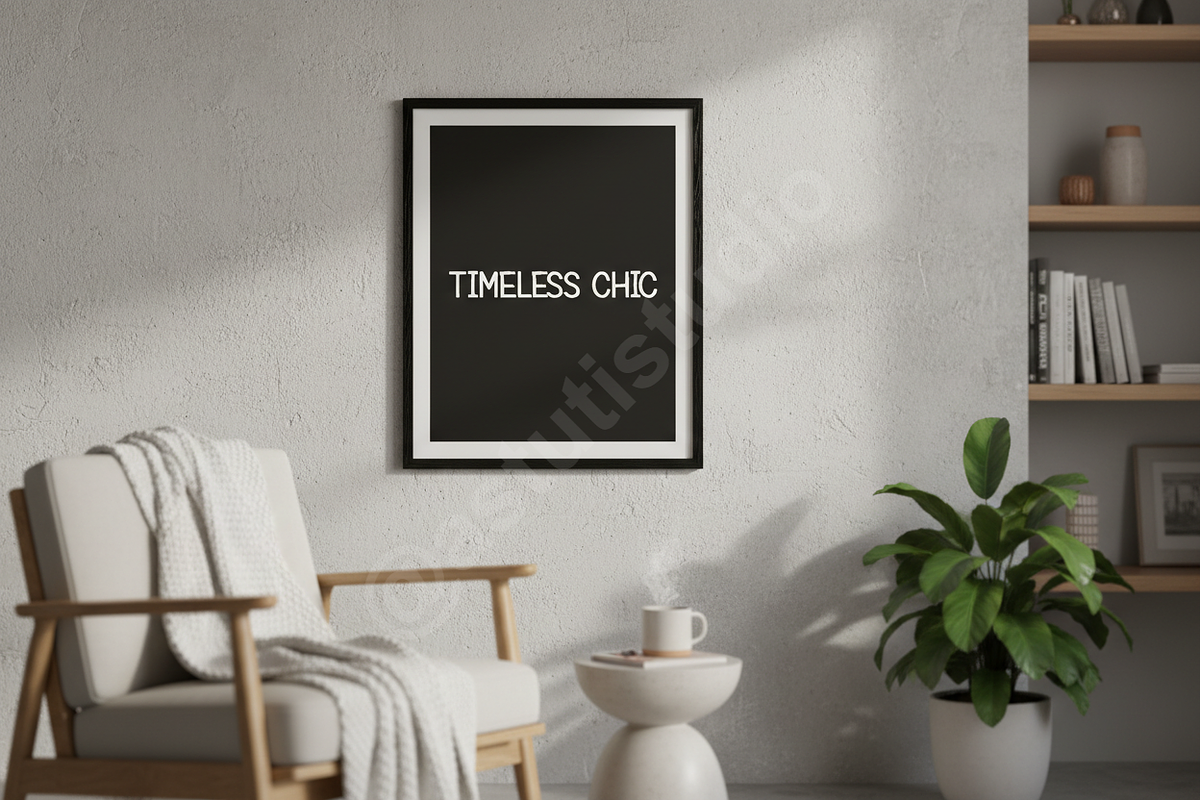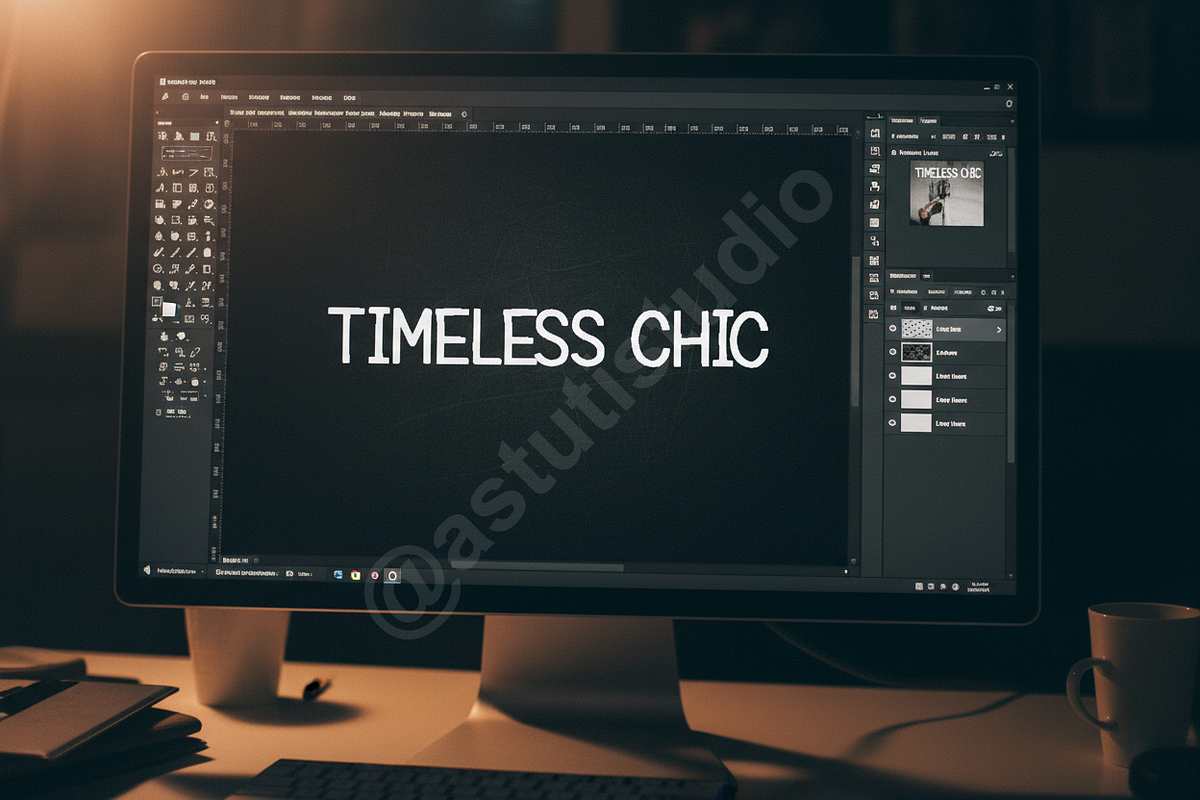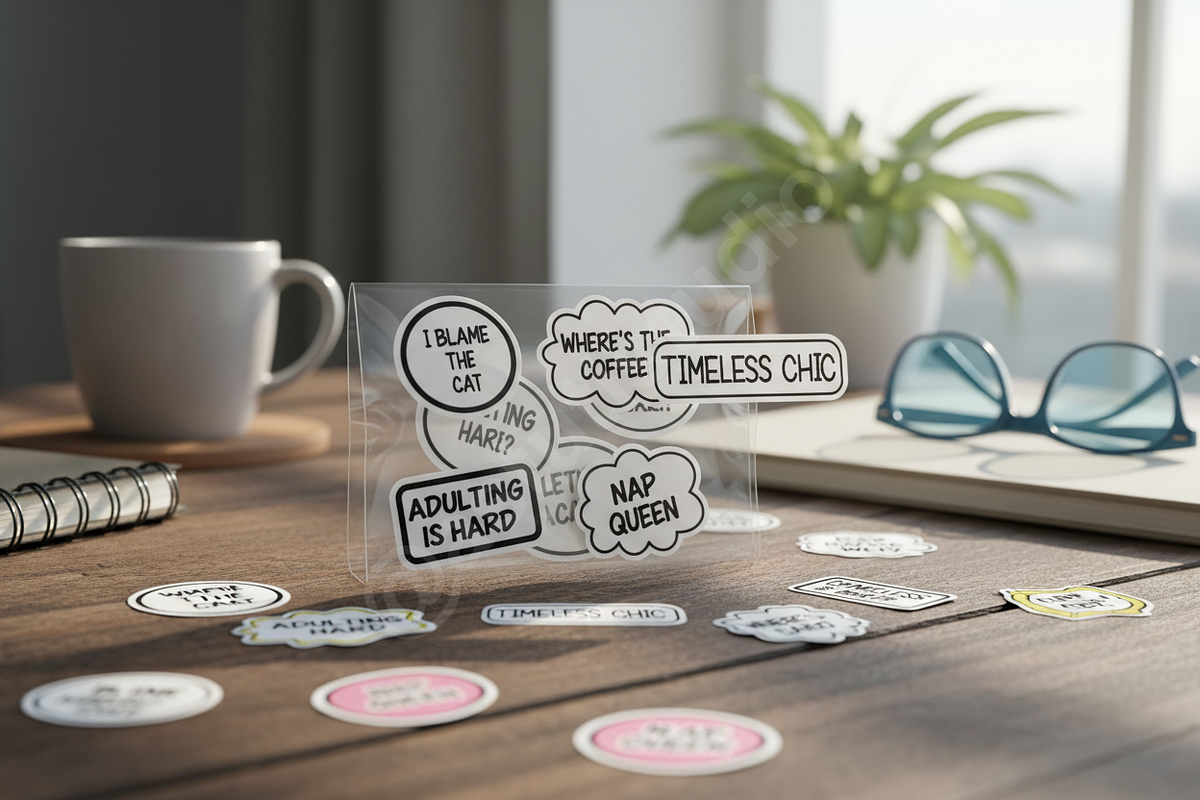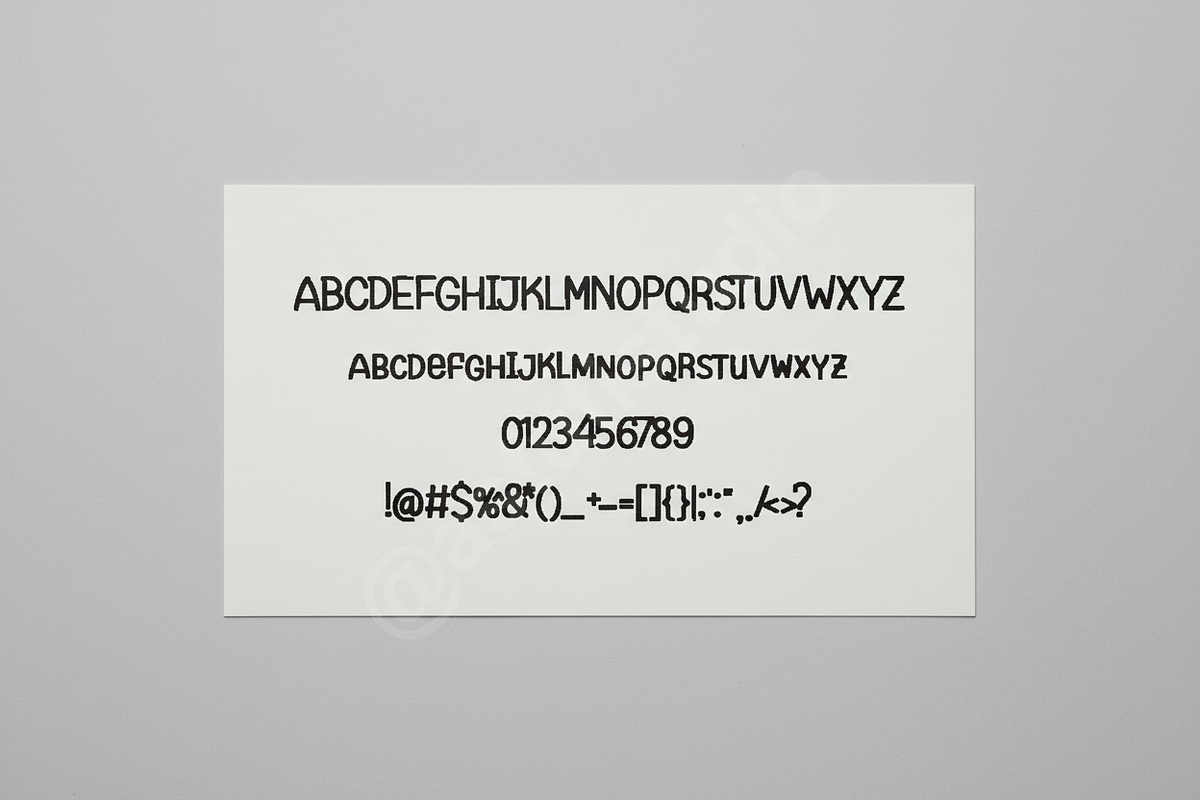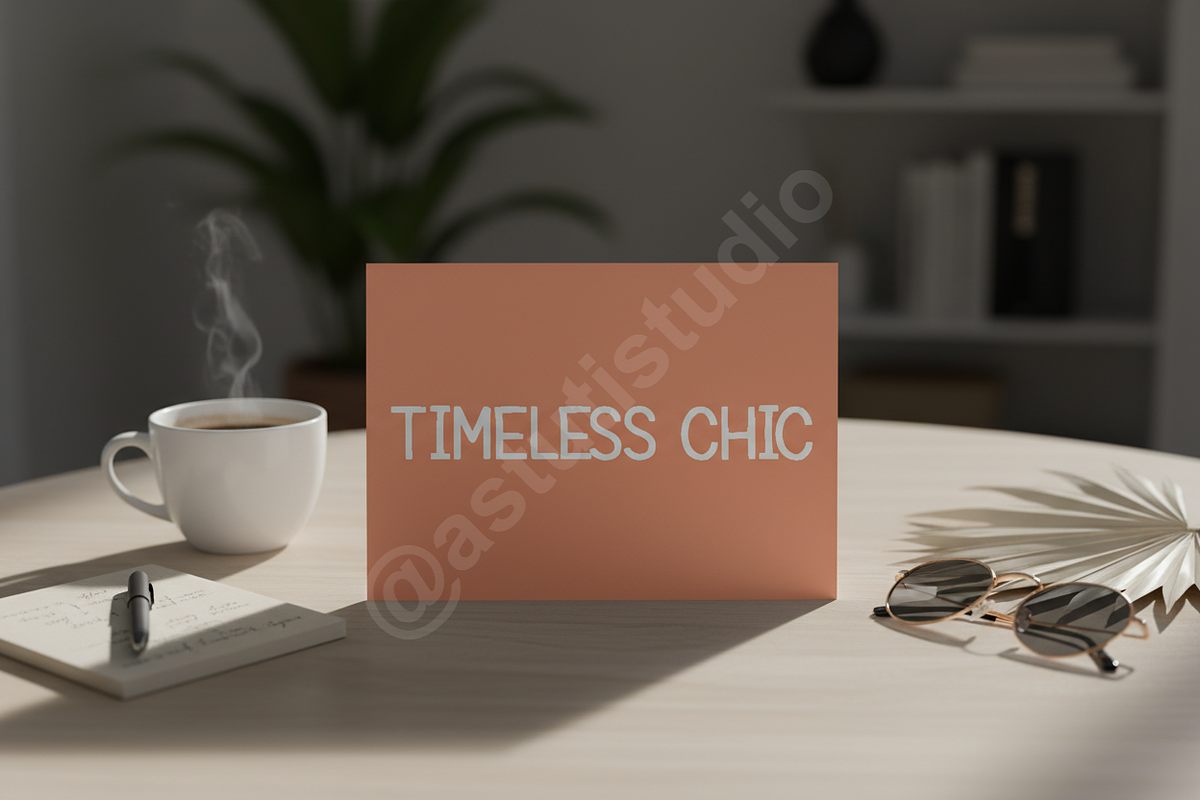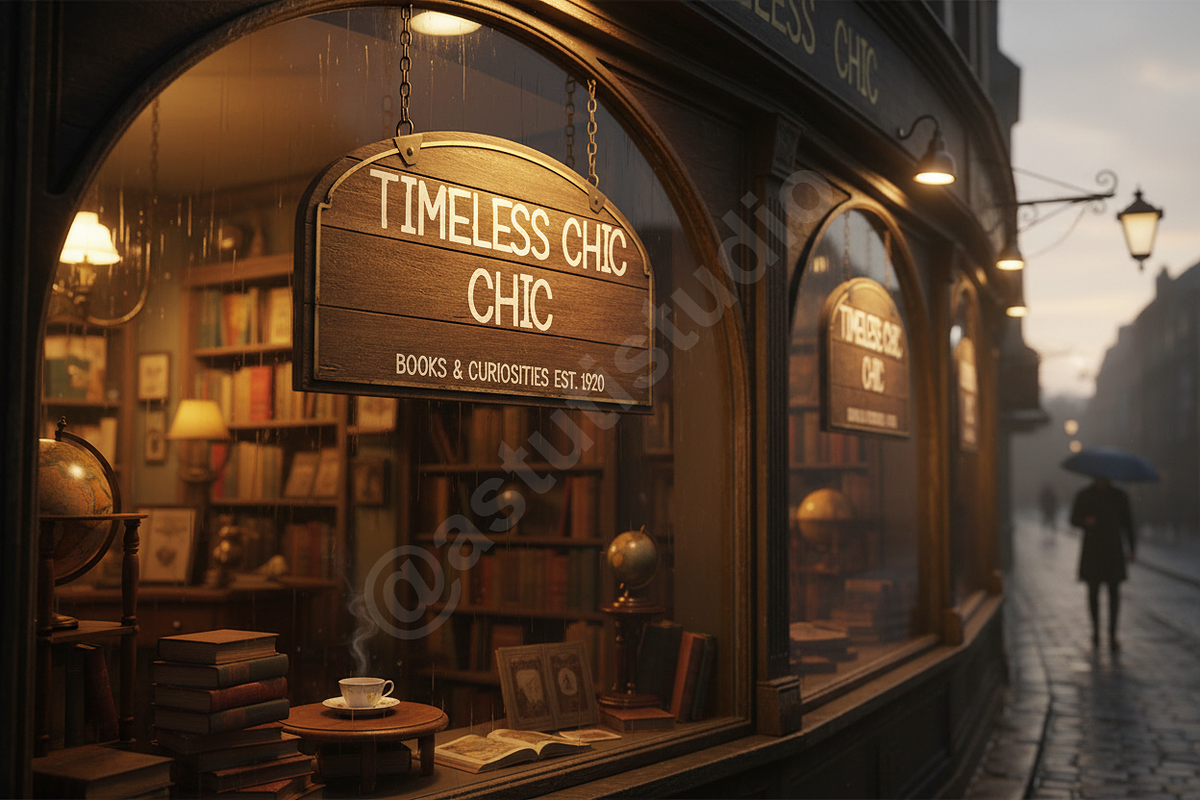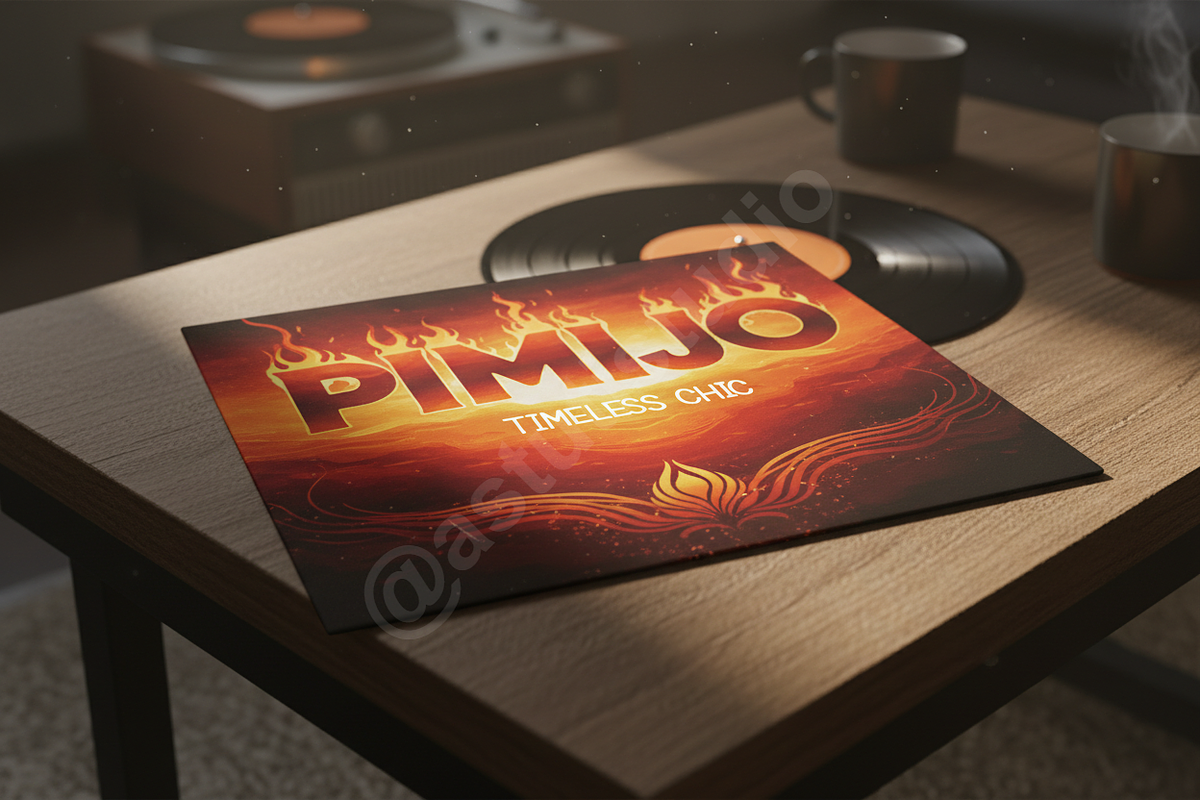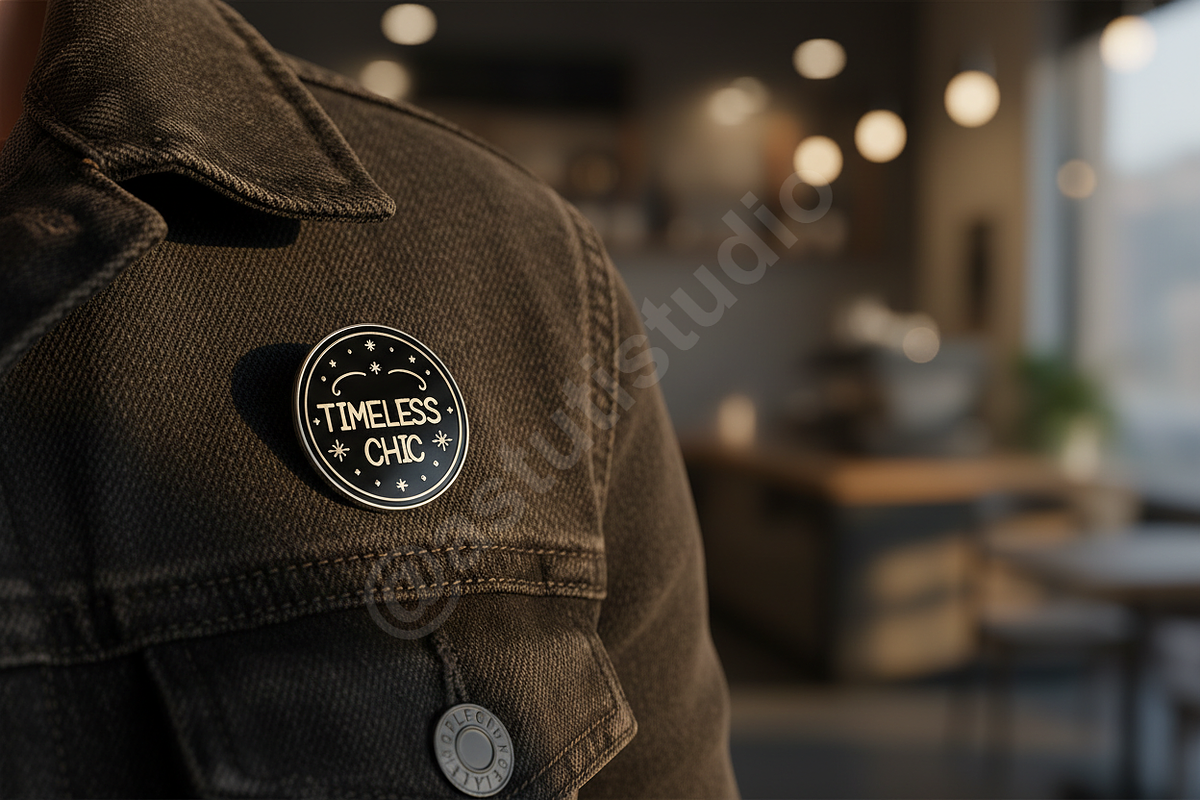
Pimiqo | Elegant Modern Serif Typefa
Introduction: Pimiqo is a masterfully crafted modern serif font that balances timeless elegance with contemporary flair. Designed specifically for premium aesthetic applications, Pimiqo brings a sense of refined luxury to any design project. This typeface is the ideal choice for high-end branding, sophisticated editorial layouts, and high-impact social media content that requires a touch of class.
- Sophisticated high-contrast serif letterforms.
- Extensive ligature set for custom-looking typography.
- Stylistic alternates to provide unique character variations.
- Full multilingual support for global accessibility.
- Precision kerning for professional-grade readability.
- Comprehensive character set including uppercase, lowercase, numbers, and symbols.